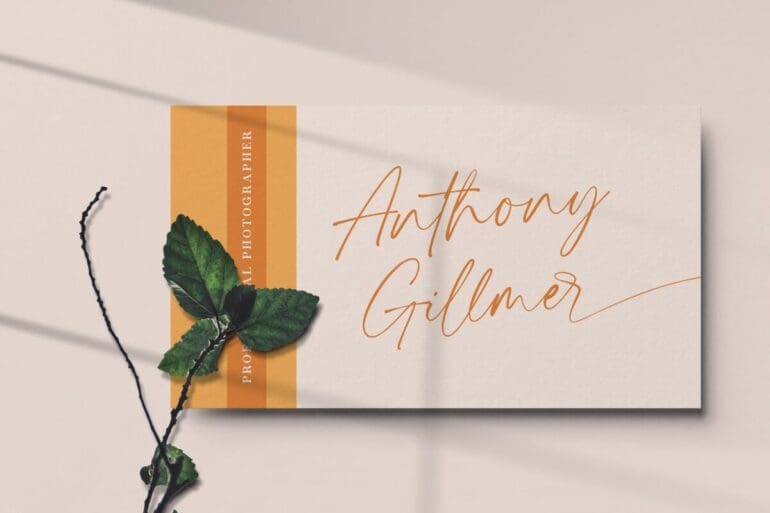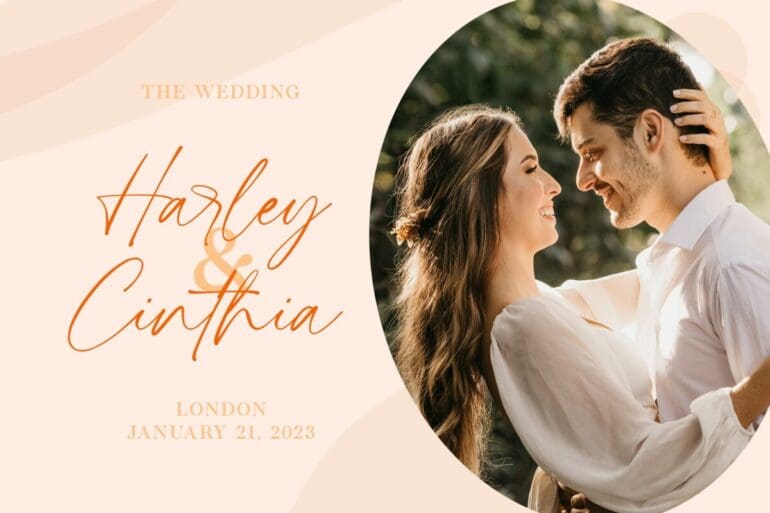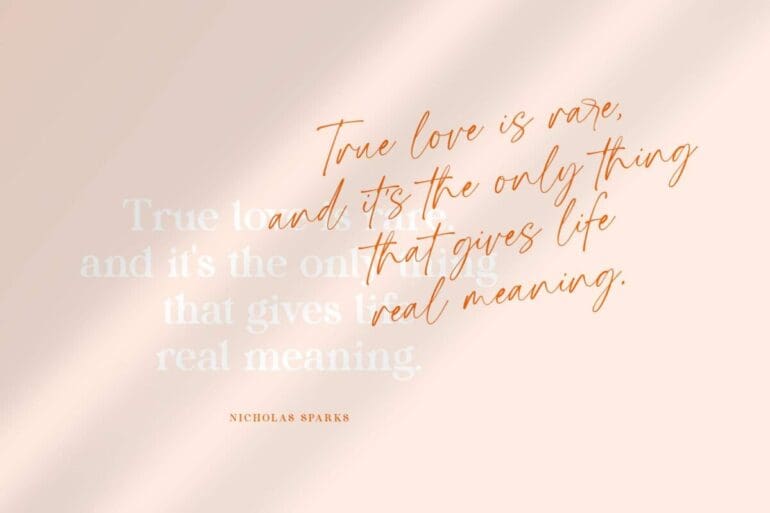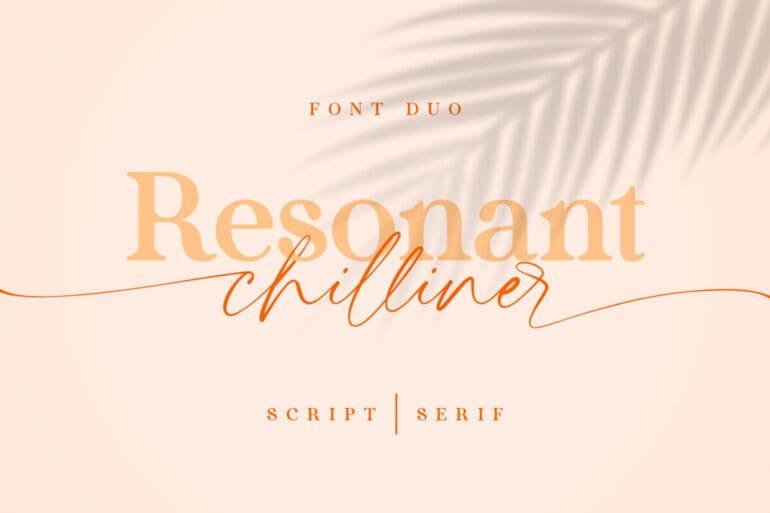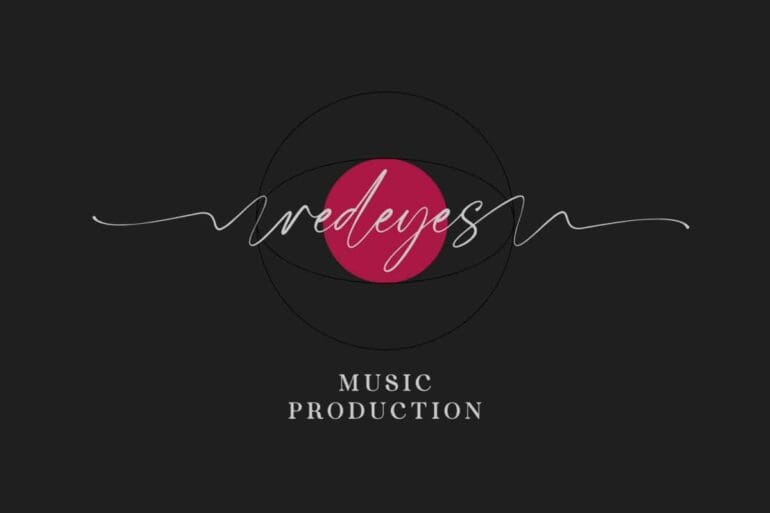
Resonant Chilliner Font
Resonant Chilliner is a perfect mix modern script and serif font. It was created to help you designing makes gorgeous logos, posters, wedding invitations, blog posts, social media, and more!